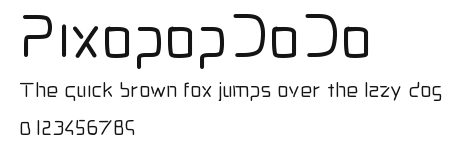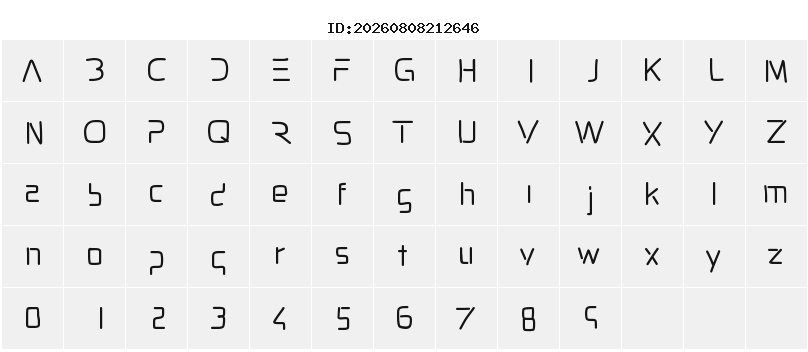
• Font Name: PixopopDoDo
• Full Font Name: PixopopDoDo
About PixopopDoDo.ttf
PixopopDoDo.ttf is a modern, elegant sans-serif font designed for ultimate readability and visual harmony. Perfect for branding, headlines, web design, and print materials.